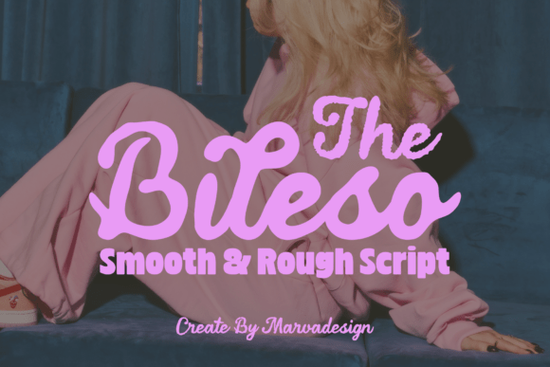
Looking for a retro display script font that works equally well on merch, packaging, and social media? The Bileso Font is a dual-styled typeface designed to bring bold, nostalgic energy to any creative project. It pairs thick, fluidly connected cursive letterforms with playful, low-slanted loops giving you a look that sits right between 1970s diner signage and modern indie streetwear graphics. Whether you're designing custom apparel, boutique snack labels, or eye-catching poster titles, The Bileso offers both clean contour and textured edge styles so you can match the exact vibe your project needs.
What Makes This Font Different from Other Retro Script Fonts?
Most retro script fonts lean heavily in one direction either too playful or too polished. The Bileso sits in a sweet spot. Its thick cursive strokes feel confident and warm, while the low-slanted loops add just enough personality without tipping into cartoon territory.
That balance makes it versatile. You get the nostalgia of a vintage milkshake sign without looking dated. And with two style variations clean contours and textured edges you can shift the mood from refined to rugged depending on your project.
- Dual style options clean and textured versions included in one package
- Thick, connected letterforms that stay readable at larger display sizes
- Retro-meets-modern character that fits both vintage and contemporary layouts
- Bold display weight built for headlines, logos, and branding
The textured edge version is especially popular for print-on-demand apparel, where a slightly rough, worn-in look adds authenticity. The clean contour version works better for packaging, digital graphics, and anything that needs a sharper finish.